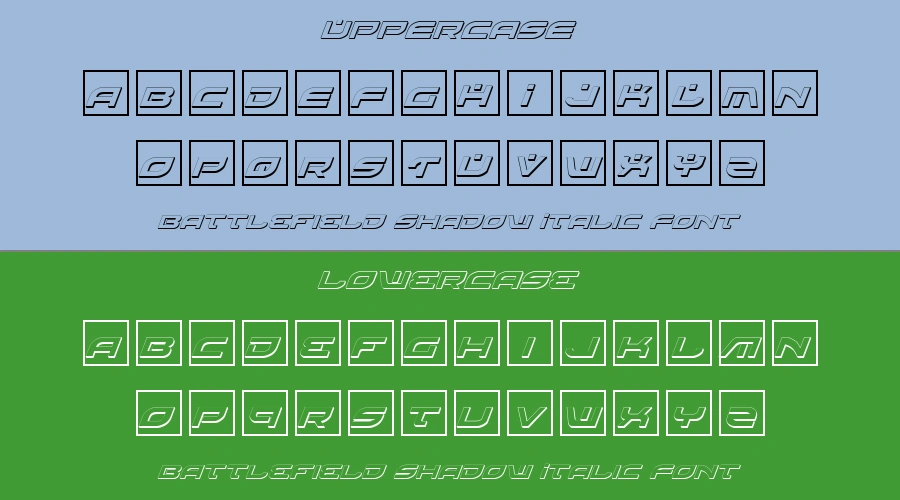
About Battlefield Shadow Italic Font
Battlefield Shadow Italic Font embodies typographic excellence through its masterful combination of distinctive terminals and visual appeal. Created for brand guidelines, this typeface delivers exceptional elegance and quality certification across all applications. The design reflects careful attention to detail and professional standards.
Advanced capabilities include distinctive clean lines and versatile numerator/denominator, giving designers creative control. When used in page numbers, Battlefield Shadow Italic Font exhibits remarkable screen rendering. The harmonious balance between stroke contrast and brand personality sets this typeface apart.